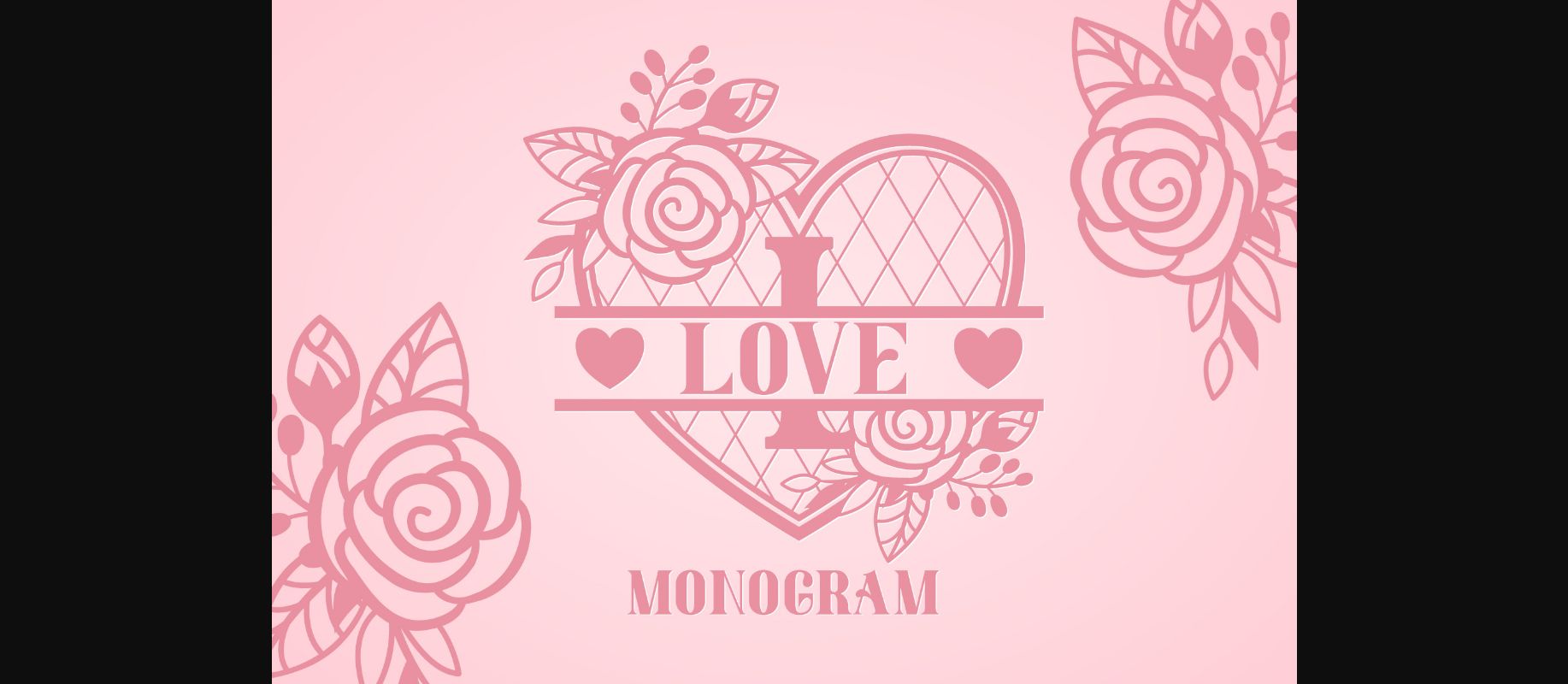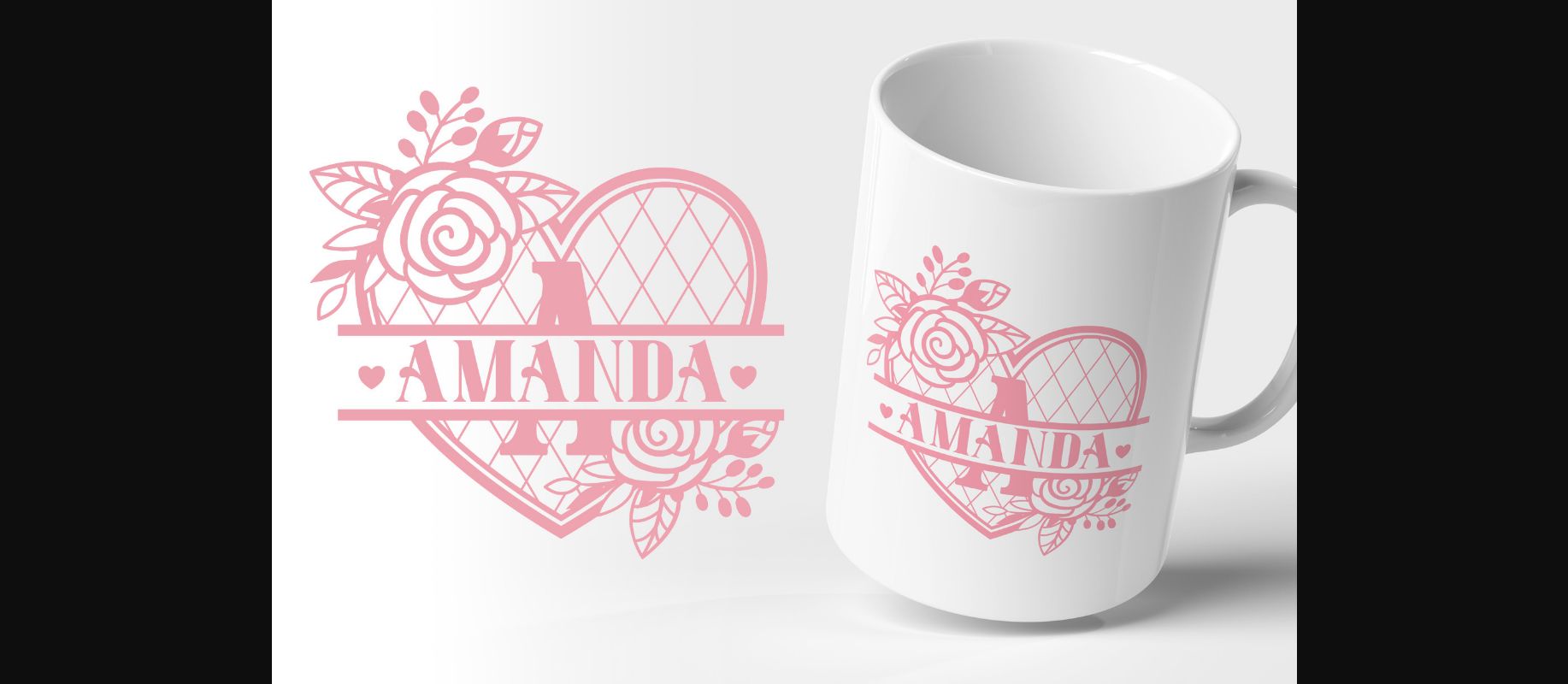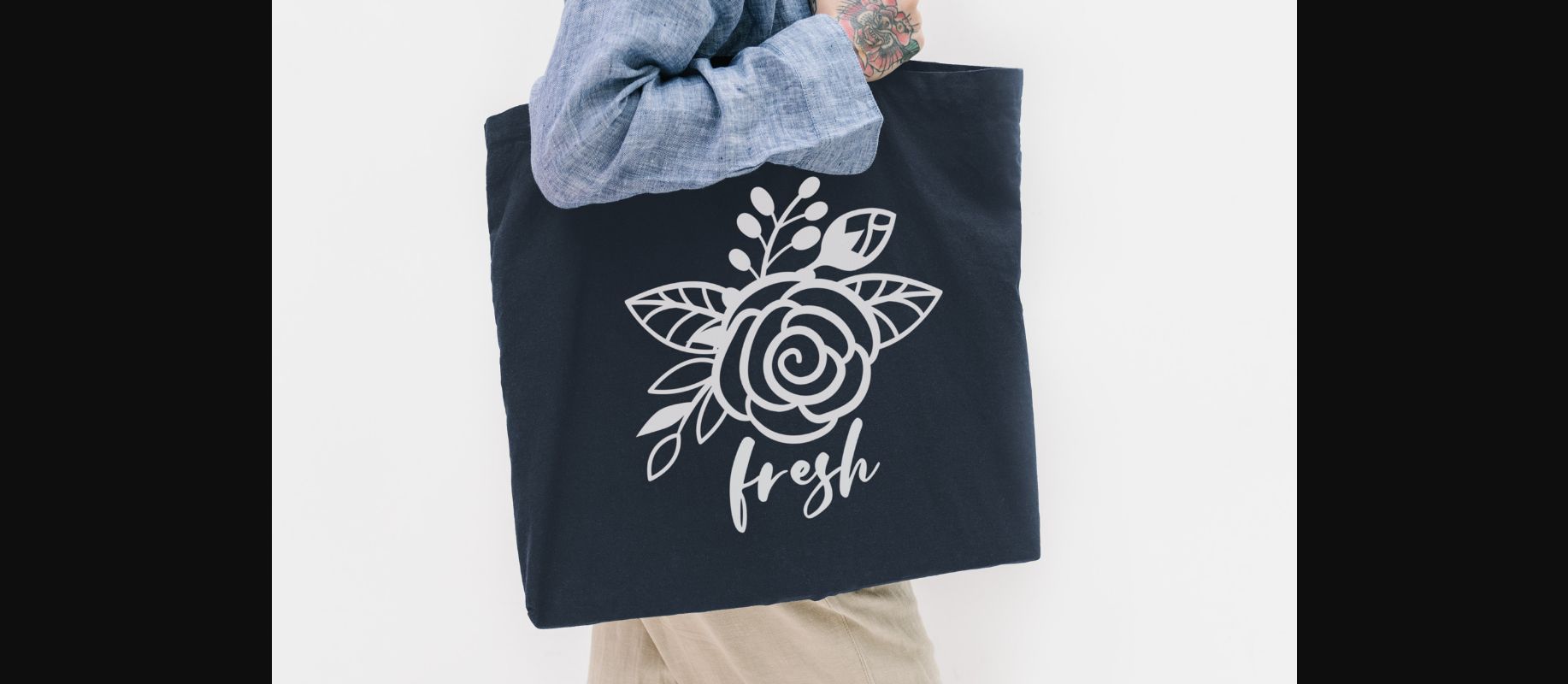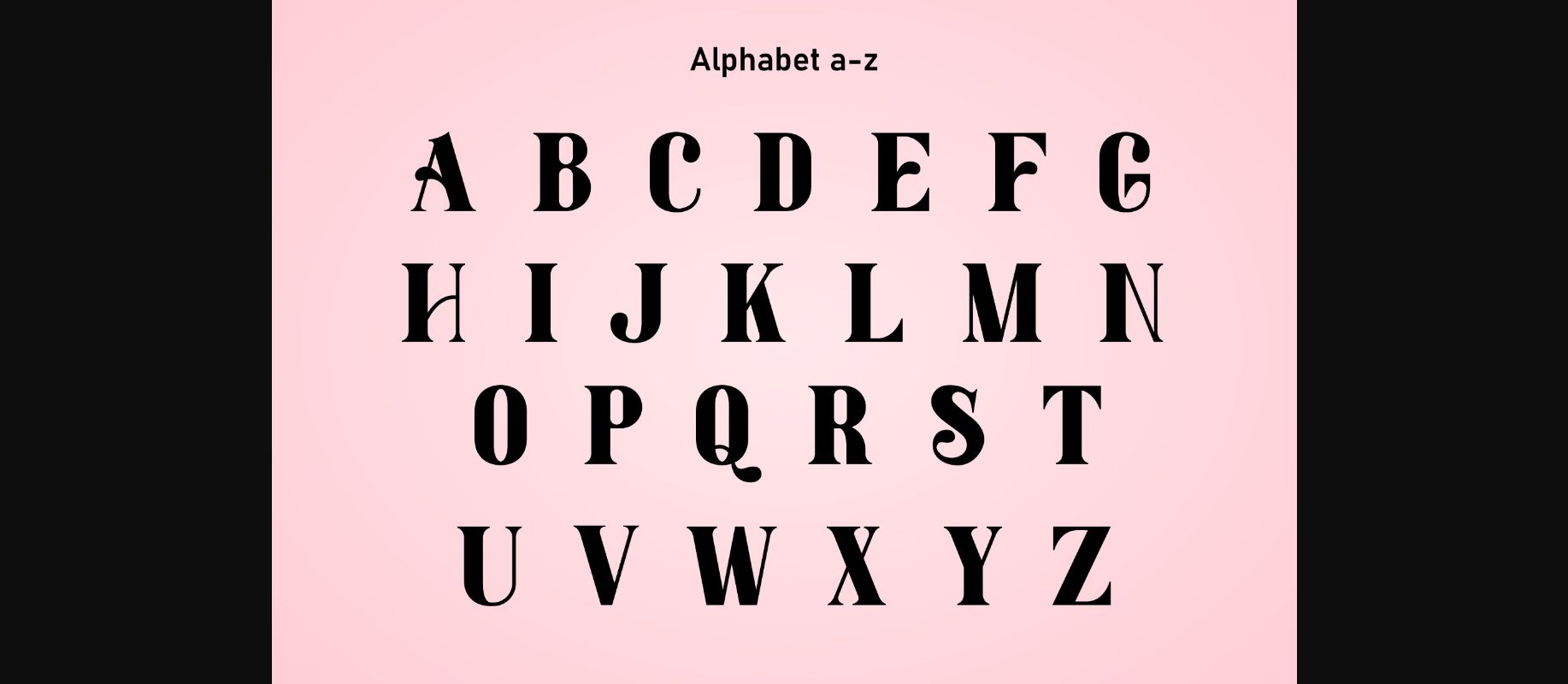
About Love Monogram Font
Love Monogram is a heart and flower monogram font. Fall in love with its authentic feel and use it to create gorgeous invitations, beautiful stationary art, eye-catching social media posts, and cute greeting cards. Add this beautiful font to each of your creative ideas and notice how it makes them stand out!